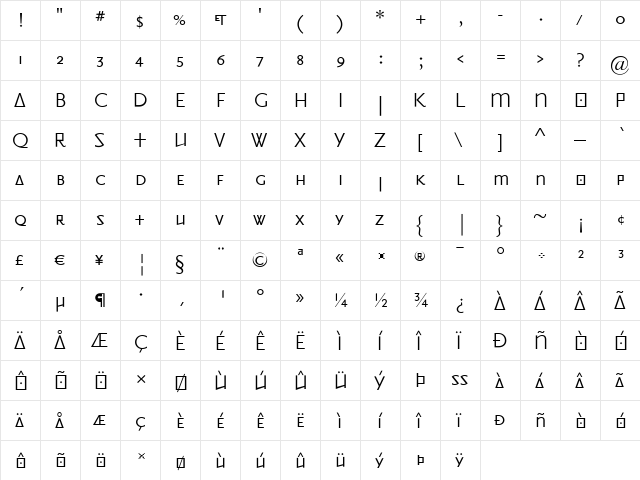
Priori Sans Medium
Design Context for Priori Sans Typeface
Priori Sans offers clean, dependable letterforms without strong stylistic allegiance, making it a practical choice for designers who need flexibility.